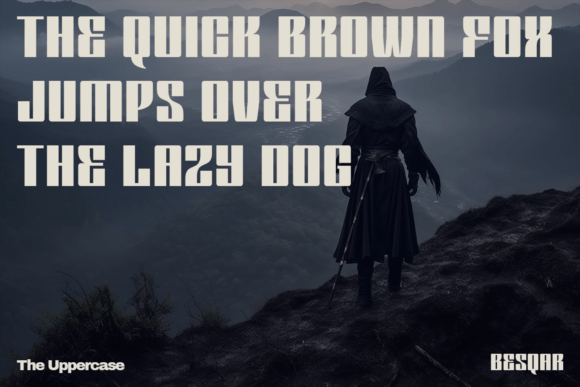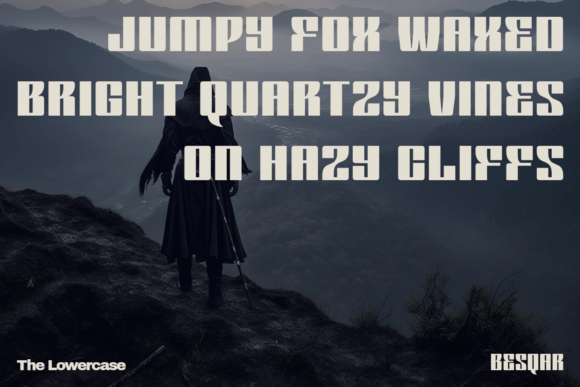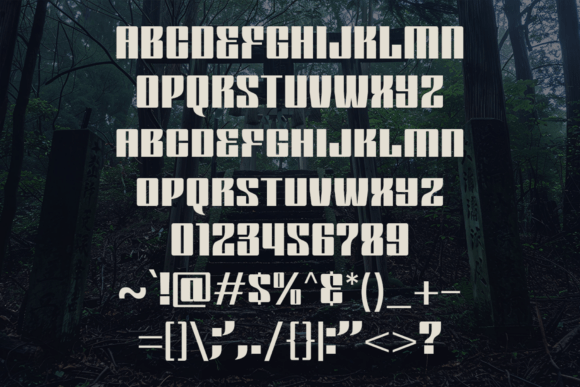
Unleash the Power of Besqar Font: The Ultimate Display Font for Dark and Edgy Designs
Step into the world of silent assassins, where every strike is swift and precise. In the realm of design, there’s a font that embodies the spirit of ninjas from legendary movies and epic games – Besqar Font. This bold, square, and razor-sharp display font is forged with the essence of deadly elegance, delivering power, precision, and presence to your design.
The Inspiration Behind Besqar Font
Besqar Font draws inspiration from the stealthy and deadly world of ninjas, evoking the imagery of katanas and the dark, mysterious aura of the night. Each letter is meticulously crafted to mimic the sleek and precise lines of a katana, exuding a sense of power and sophistication. The font’s design is a perfect blend of form and function, making it an ideal choice for designers seeking to create striking and memorable visuals.
Characteristics of Besqar Font
Besqar Font boasts a range of characteristics that make it an exceptional display font:
- Bold and Square: The font’s bold and square shape gives it a commanding presence, making it perfect for headlines and titles.
- Razor-Sharp Edges: The font’s sharp edges evoke the imagery of a katana, adding a touch of edginess to your design.
- Deadly Elegance: Each letter is crafted with precision and elegance, making it suitable for designs that require a sense of sophistication.
Use Cases for Besqar Font
Besqar Font is an incredibly versatile font that can be used in a variety of design projects, including:
- Movie Posters: Add a touch of darkness and mystery to your movie posters with Besqar Font.
- Video Game Titles: Create striking and memorable titles for your video games with Besqar Font.
- Comic Covers: Give your comic covers a bold and edgy look with Besqar Font.
- Toy Packaging: Add a touch of sophistication and elegance to your toy packaging with Besqar Font.
- Dark, Assassin, Sci-Fi, and Ninja-Themed Designs: Besqar Font is perfect for designs that require a dark, mysterious, and edgy aesthetic.
Why Choose Besqar Font?
Besqar Font is an exceptional display font that offers a unique combination of style, elegance, and power. Here are some reasons why you should choose Besqar Font for your next design project:
- Unique and Memorable: Besqar Font is a one-of-a-kind font that will make your design stand out from the crowd.
- Highly Versatile: The font can be used in a variety of design projects, from movie posters to toy packaging.
- Easy to Read: Despite its bold and edgy design, Besqar Font is easy to read, making it perfect for headlines and titles.
Tips for Using Besqar Font
Here are some tips for using Besqar Font effectively in your design projects:
- Use it for Headlines and Titles: Besqar Font is perfect for headlines and titles, where its bold and edgy design can make a lasting impact.
- Experiment with Colors: Besqar Font looks great in a range of colors, from dark and muted tones to bright and bold hues.
- Pair it with Other Fonts: Besqar Font can be paired with other fonts to create a unique and memorable design.
In conclusion, Besqar Font is an exceptional display font that embodies the spirit of ninjas and katanas. Its bold, square, and razor-sharp design makes it perfect for dark, assassin, sci-fi, and ninja-themed designs. With its unique combination of style, elegance, and power, Besqar Font is an ideal choice for designers seeking to create striking and memorable visuals. Whether you’re crafting the next stealth-action blockbuster or designing a futuristic dystopian brand, Besqar Font cuts through the noise and commands attention.